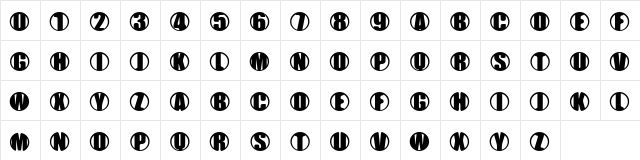
YChrome Contained Free Font
YChrome Contained
Style: Contained
Design Context for YChrome
YChrome is a composed and adaptable typeface that performs quietly and consistently across a wide range of design contexts.